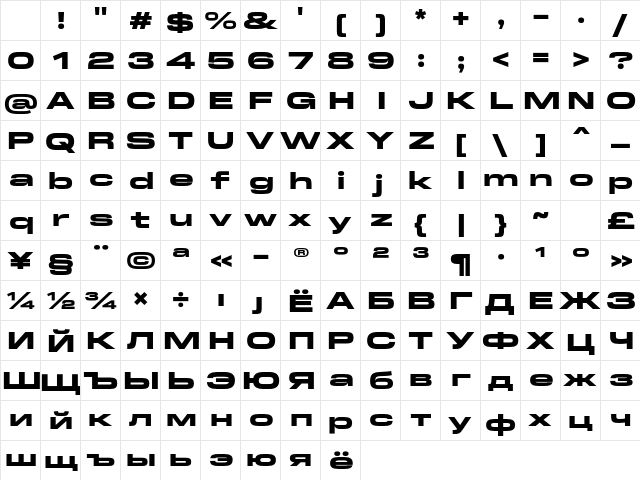
YFF RARE TRIAL Power 900 Black brings high-energy athletic personality to the page - its confident, muscular forms are built for impact.
Pro Tip: Use YFF RARE TRIAL Power 900 Black in all-caps headlines where its athletic energy can fully express itself. Pair with a solid, simple sans for supporting text.